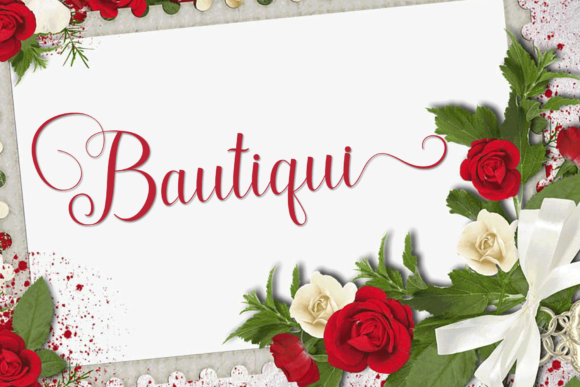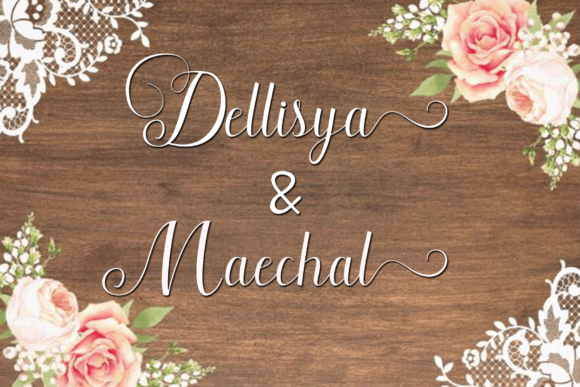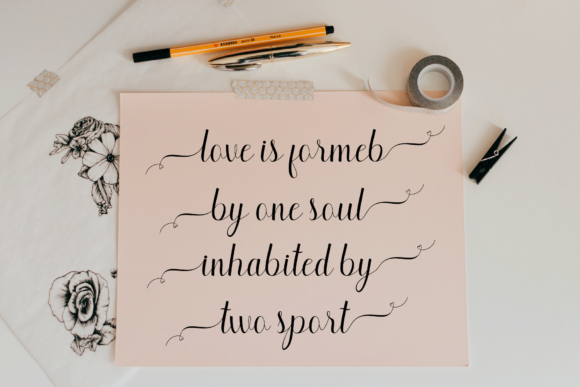
About Bahagia Font
Bahagia is playful and dynamic, but also incredibly elegant. This versatile calligraphy script font has a wide range of applications ranging from wedding invitations to branding and is guaranteed to add a sophisticated touch to your next design.
This font is PUA encoded which means you can access all of the stunning glyphs and swashes with ease! It also features a wealth of special features including alternate glyphs and ligatures.